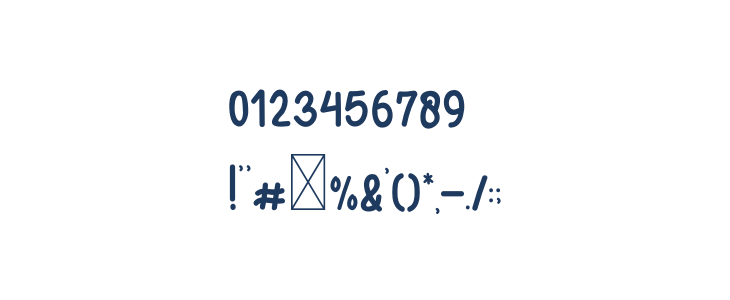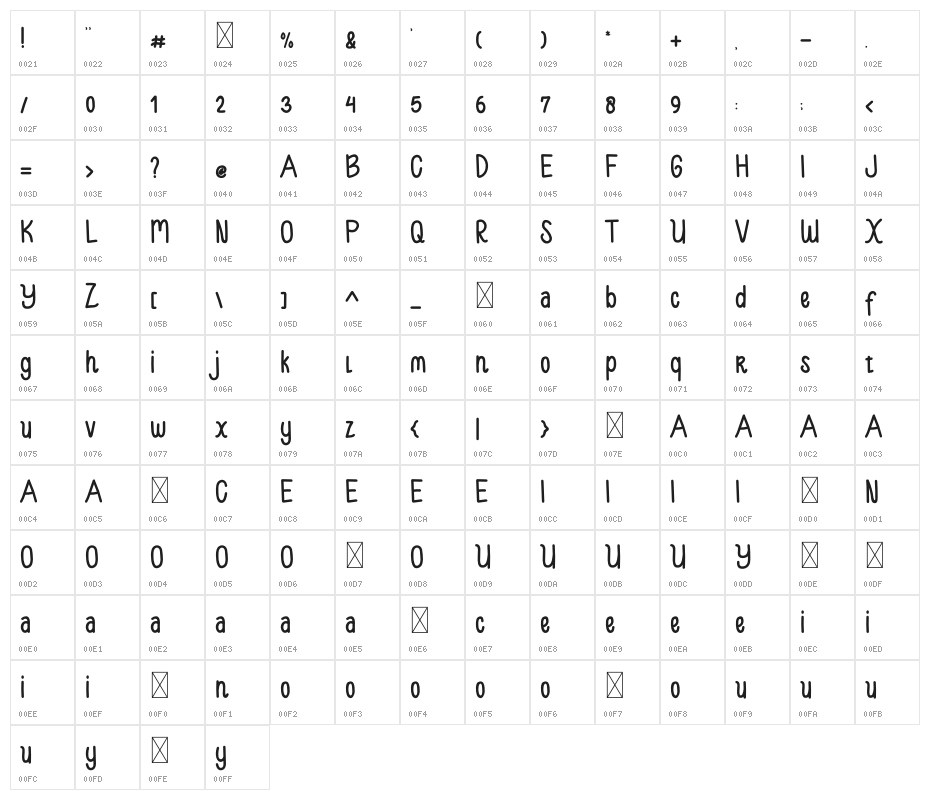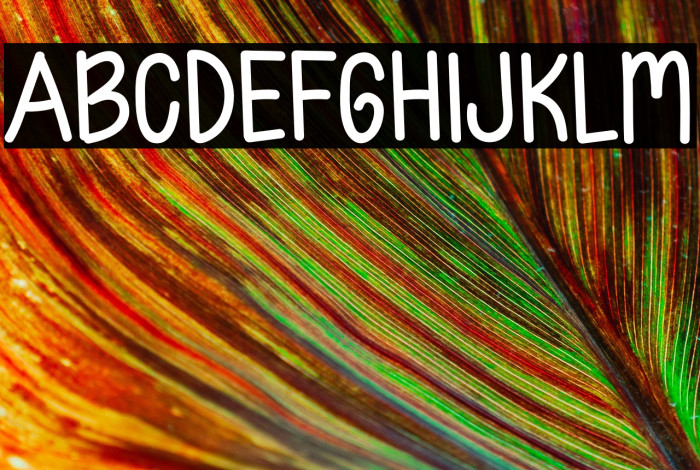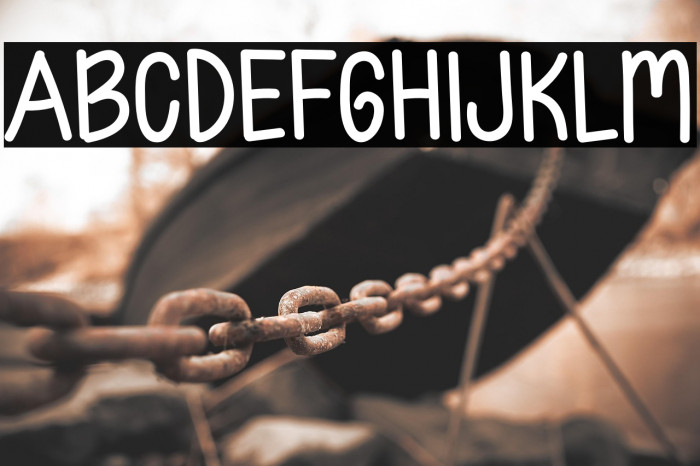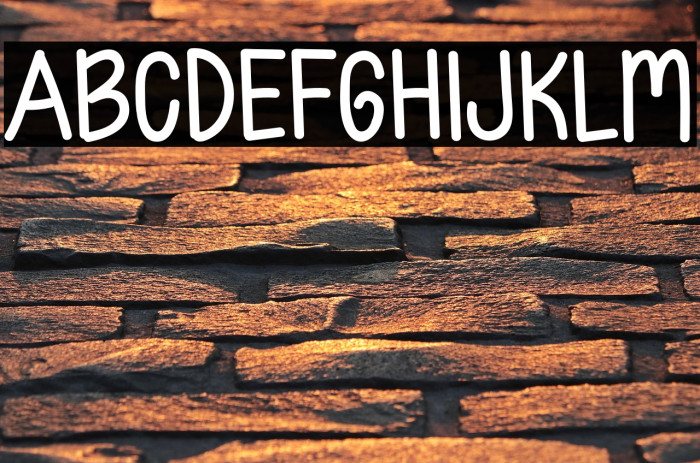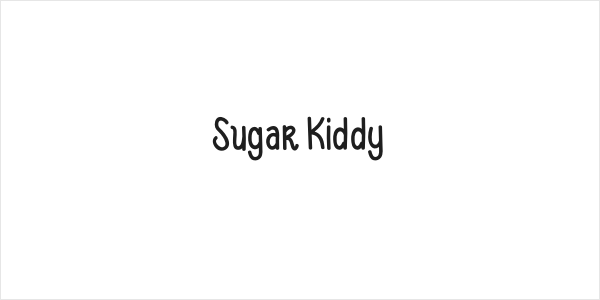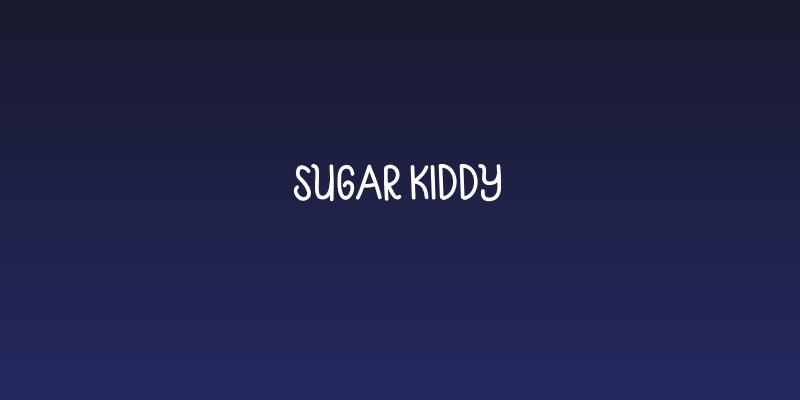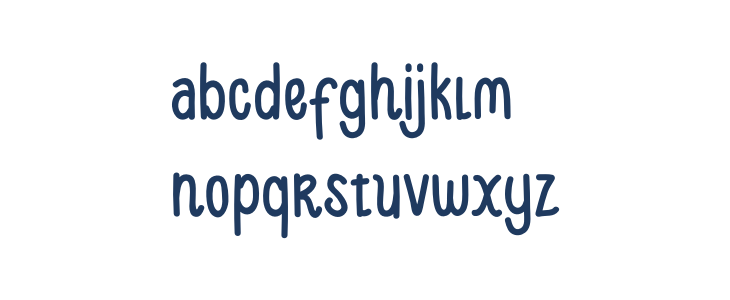
Sugar Kiddy Font
Sugar Kiddy Description
This playful and whimsical font features a handwritten style with rounded edges and a friendly appearance. The letters are slightly irregular, adding a touch of charm and personality. The uppercase and lowercase characters maintain a consistent flow, while the numbers and special characters complement the overall design. Its informal and approachable look makes it ideal for projects that require a fun and lighthearted touch. The font's unique style is perfect for children's books, playful branding, and creative projects that aim to convey warmth and friendliness.
| Proposed Projects | Ideal for children's books, playful branding, greeting cards, and creative projects. |